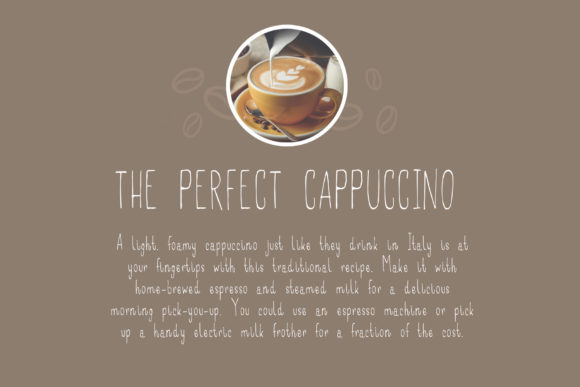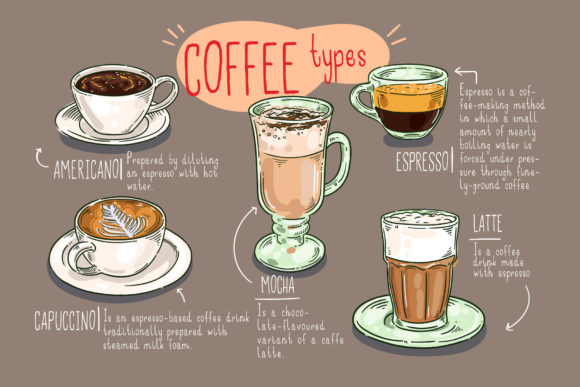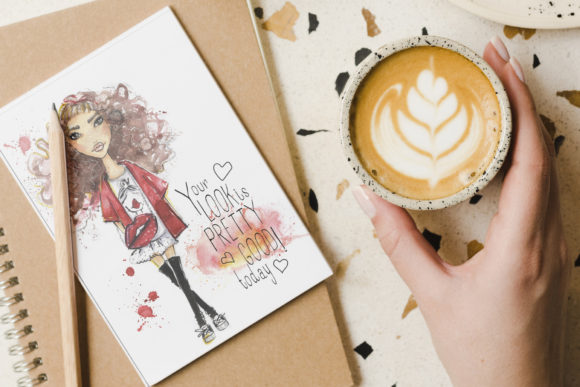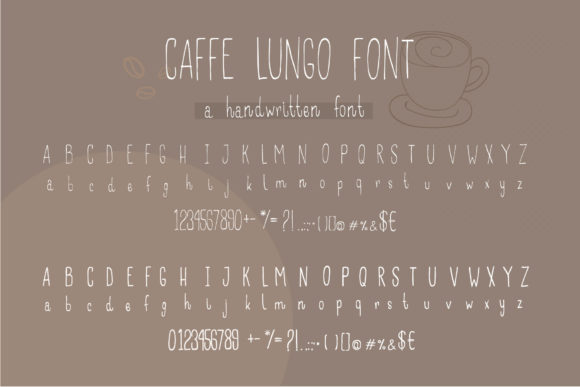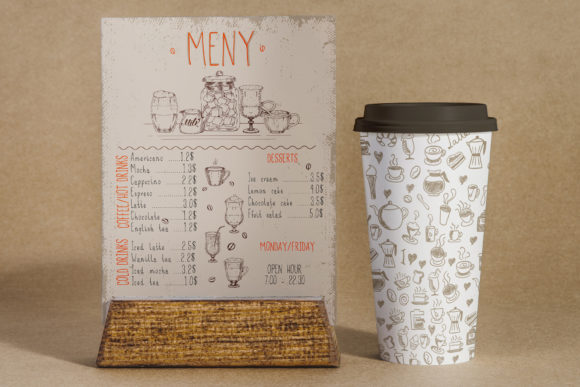
Caffee Lungo Font: The Perfect Handwritten Font for Chalkboard Quotes and Teaching Materials
Are you a designer or crafter looking for a font that can add a personal touch to your designs? Look no further than Caffee Lungo Font! This cute and simple lettered handwritten font is perfect for creating chalkboard quotes, teaching materials, and other designs that require a authentic and realistic feel.
What is Caffee Lungo Font?
Caffee Lungo Font is a handwritten font that is designed to mimic the look of chalkboard writing. Its authentic look and feel make it perfect for creating designs that require a personal and realistic touch. The font is simple, yet elegant, making it suitable for a wide range of design projects.
Features of Caffee Lungo Font
- Cute and Simple Design: Caffee Lungo Font has a cute and simple design that makes it perfect for creating chalkboard quotes and teaching materials.
- Handwritten Style: The font has a handwritten style that gives it an authentic and realistic feel.
- Easy to Read: The font is easy to read, making it perfect for creating teaching materials and other designs that require clear and legible text.
- Versatile: Caffee Lungo Font is versatile and can be used for a wide range of design projects, from chalkboard quotes to posters and flyers.
Uses of Caffee Lungo Font
Caffee Lungo Font can be used for a variety of design projects, including:
- Chalkboard Quotes: The font is perfect for creating chalkboard quotes that require a personal and realistic touch.
- Teaching Materials: Caffee Lungo Font can be used to create teaching materials, such as worksheets, posters, and presentations.
- Posters and Flyers: The font can be used to create posters and flyers that require a simple and elegant design.
- Social Media Graphics: Caffee Lungo Font can be used to create social media graphics, such as Instagram posts and Facebook graphics.
Benefits of Using Caffee Lungo Font
Using Caffee Lungo Font can have several benefits, including:
- Unique and Authentic Look: The font has a unique and authentic look that can add a personal touch to your designs.
| Font Name | Caffee Lungo Font |
| Author | Irina Matiash |
Caffee Lungo Font is a cute and simple lettered handwritten font that is perfect for creating chalkboard quotes, teaching materials, and other designs that require a authentic and realistic feel. Its unique and authentic look, ease of use, and cost-effectiveness make it a great choice for designers and crafters. Try Caffee Lungo Font today and add a personal touch to your designs!